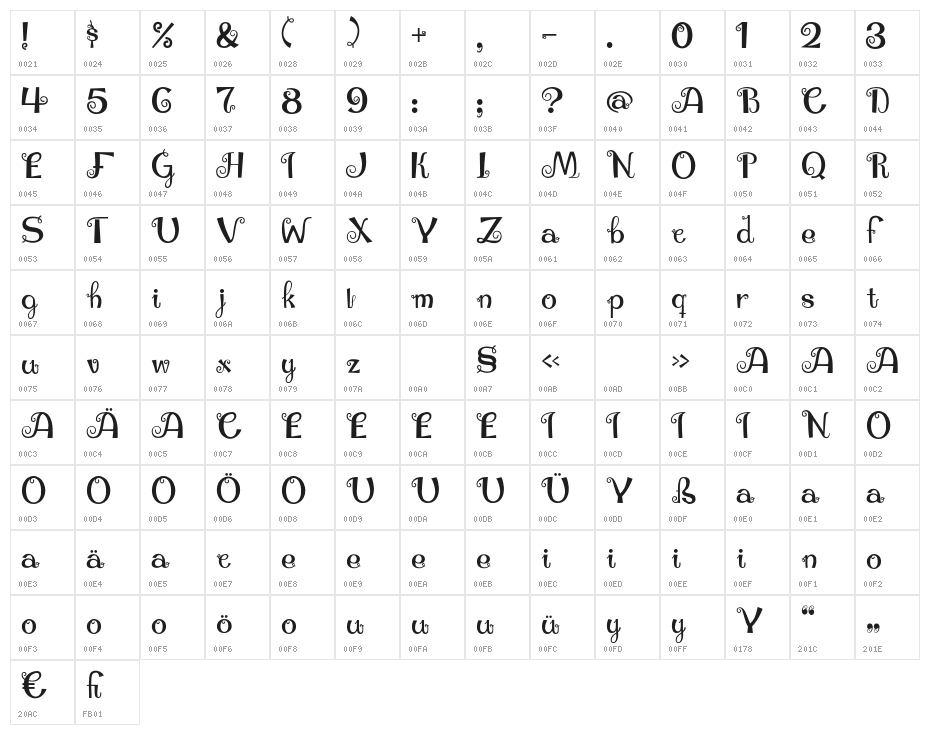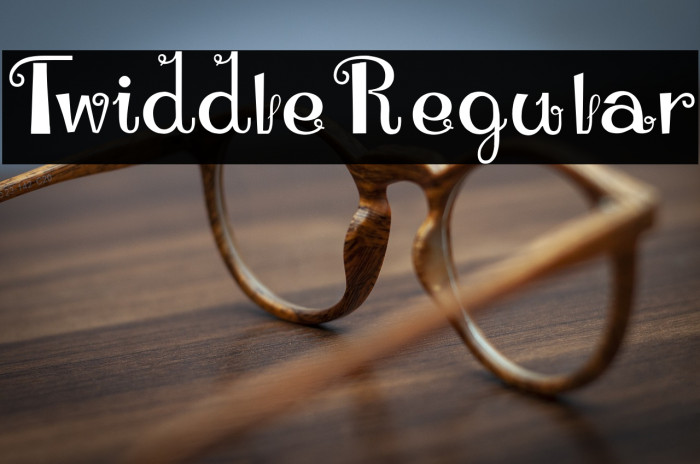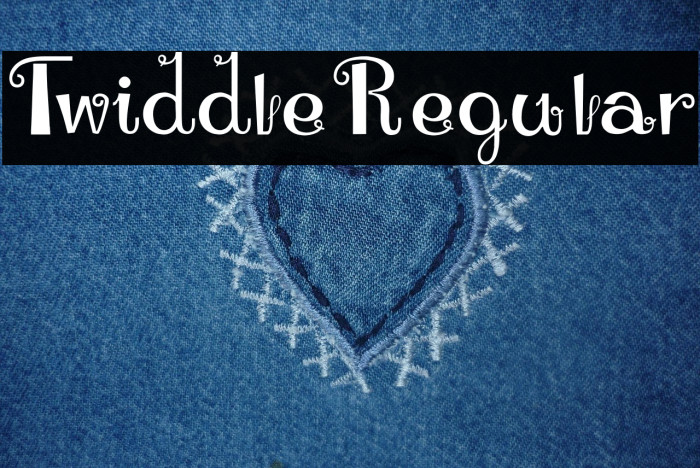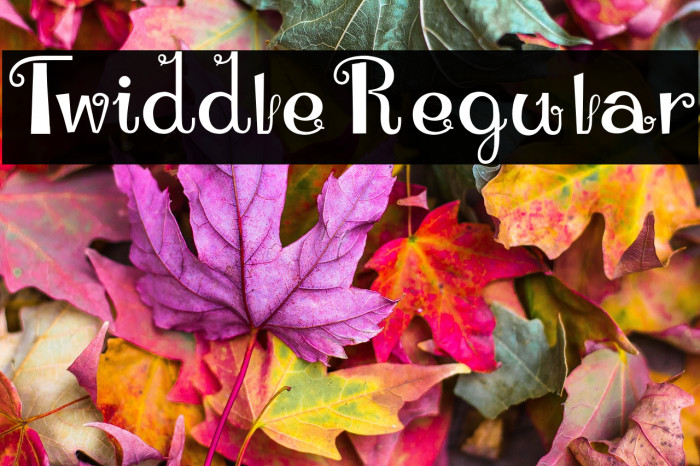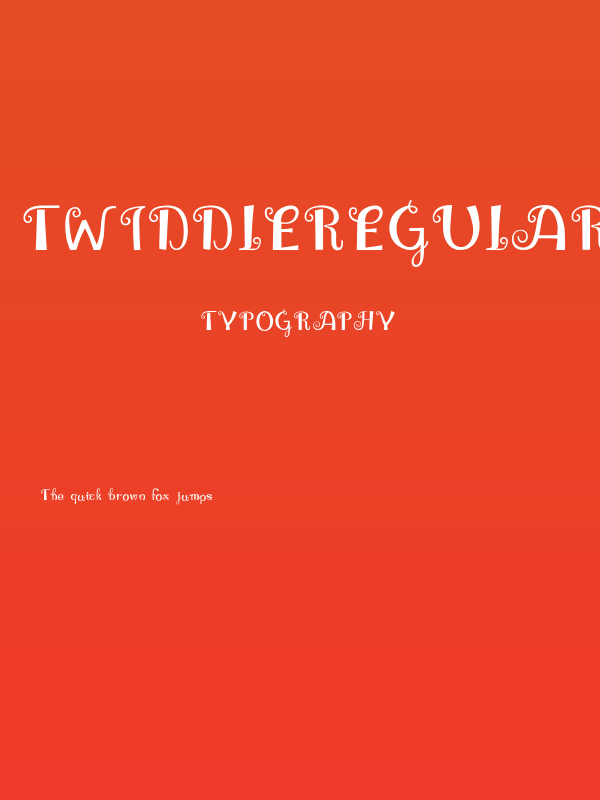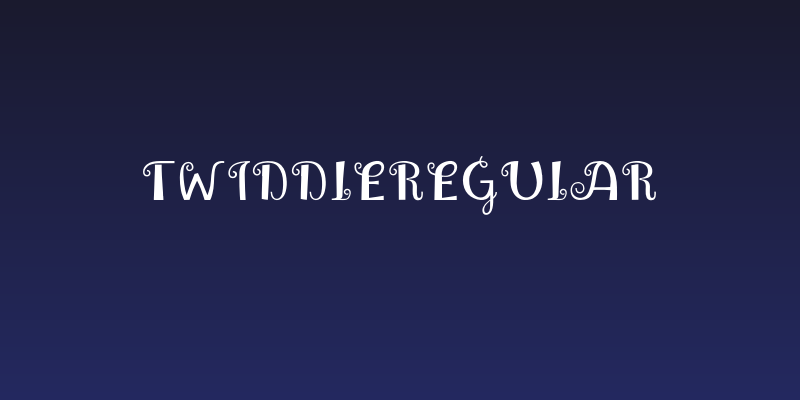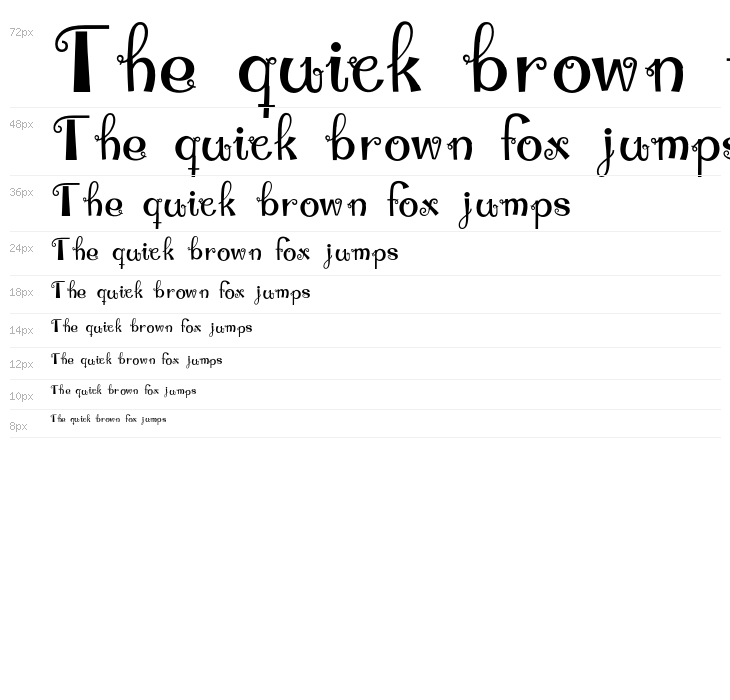
TwiddleRegular Font
TwiddleRegular Description
This font features a playful and whimsical design, characterized by its curly and decorative elements. Each letter is adorned with unique swirls and loops, giving it a lively and dynamic appearance. The uppercase letters are bold and eye-catching, while the lowercase letters maintain a consistent style with their own intricate details. Numbers and special characters follow the same decorative theme, ensuring a cohesive look across all text. The overall style is both fun and elegant, making it suitable for creative projects that require a touch of flair.
| Use Case | Headlines, Logos, Invitations |
| Proposed Projects | Ideal for children's books, greeting cards, playful branding, and creative invitations. |